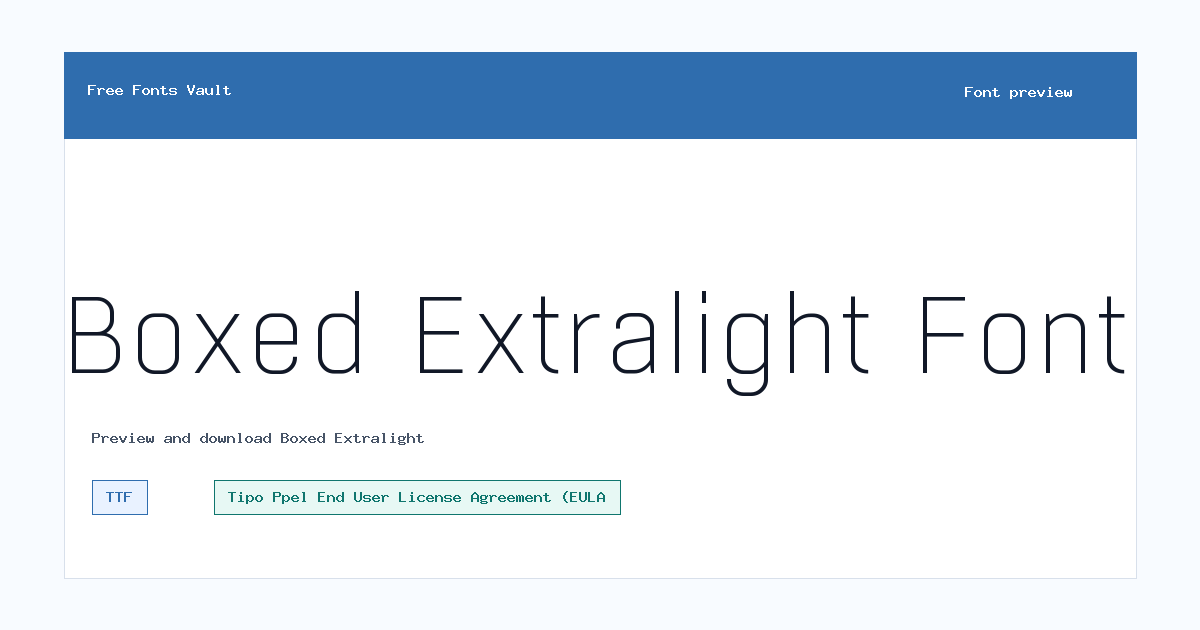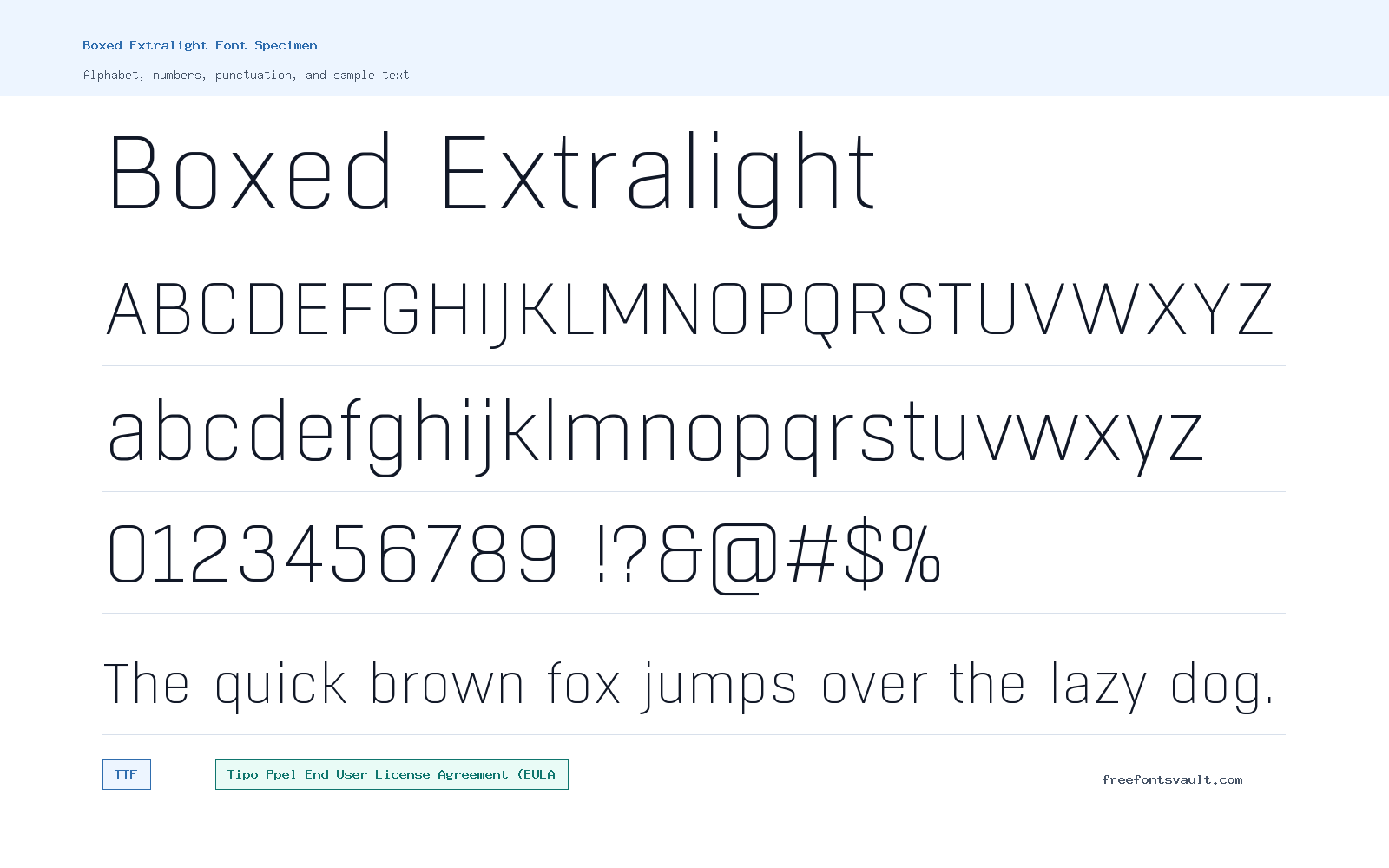
Boxed Extralight
Boxed Extralight Font
• Designer Josep Patau Bellart
• Foundry Tipo Ppel
Boxed Extralight is a thin, geometric display font with squared forms and a constructed feel. It is useful when you want a clean modern title that feels technical, minimal, and lightweight.
Because this is an extralight display style, contrast matters. It can look sharp on simple backgrounds but may disappear over a busy photo or low-contrast color. Preview uppercase, numbers, and punctuation before using it, especially if your design depends on small labels or tight spacing.
• Squared geometric letter structure for display typography.
• Best at large sizes with clean backgrounds and careful spacing.
• Minimal posters, editorial headers, and title graphics.
• Packaging labels, album-style artwork, and modern display layouts.
• Pairing with a stronger reading font for body copy and captions.
Use it when the design can give the letters space. If the title looks too thin, increase size, raise contrast, or choose a heavier companion style. For long paragraphs, keep Boxed Extralight for the headline and use a more readable text face below it. A practical check is to view the design at the smallest size it will appear. If the thin strokes start to break up, move to a larger setting or use Boxed Extralight only for the main display line.
Who designed Boxed Extralight?
The font is credited to Josep Patau Bellart, with Tipo Ppel used as the foundry reference.
Is Boxed Extralight good for body text?
It is better for large headings and short display text. Thin strokes may be hard to read in paragraphs or small captions.